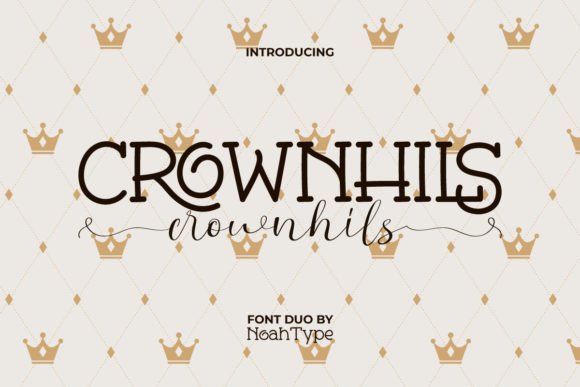
Step into the world of Crownhils Font, a majestic union of a handwritten script and a timeless serif font. This exceptional duo is crafted to unleash your creativity and elevate your designs to new heights. With its boundless versatility and captivating elegance, Crownhils is the ultimate choice for crafting sophisticated and refined designs.
Immerse yourself in a world of endless possibilities. Whether you're designing wedding invitations that exude romance and grace, creating luxury branding that radiates opulence and exclusivity, or embarking on editorial projects that demand a touch of sophistication, Crownhils is your perfect companion. Its carefully crafted characters and stunning swashes will transform your designs into masterpieces that captivate and inspire.
Crownhils Font is a symphony of elegance and versatility that grants you the freedom to explore a myriad of design possibilities. Its meticulously designed glyphs and effortless access to swashes empower you to infuse your creations with a touch of timeless charm and individuality.
Unleash your creativity and watch as Crownhils Font transforms your designs into captivating works of art. With its ability to effortlessly elevate any project, Crownhils is the ultimate choice for designers seeking to make a lasting impression. Embrace the beauty of Crownhils Font and embark on a journey of design excellence today!